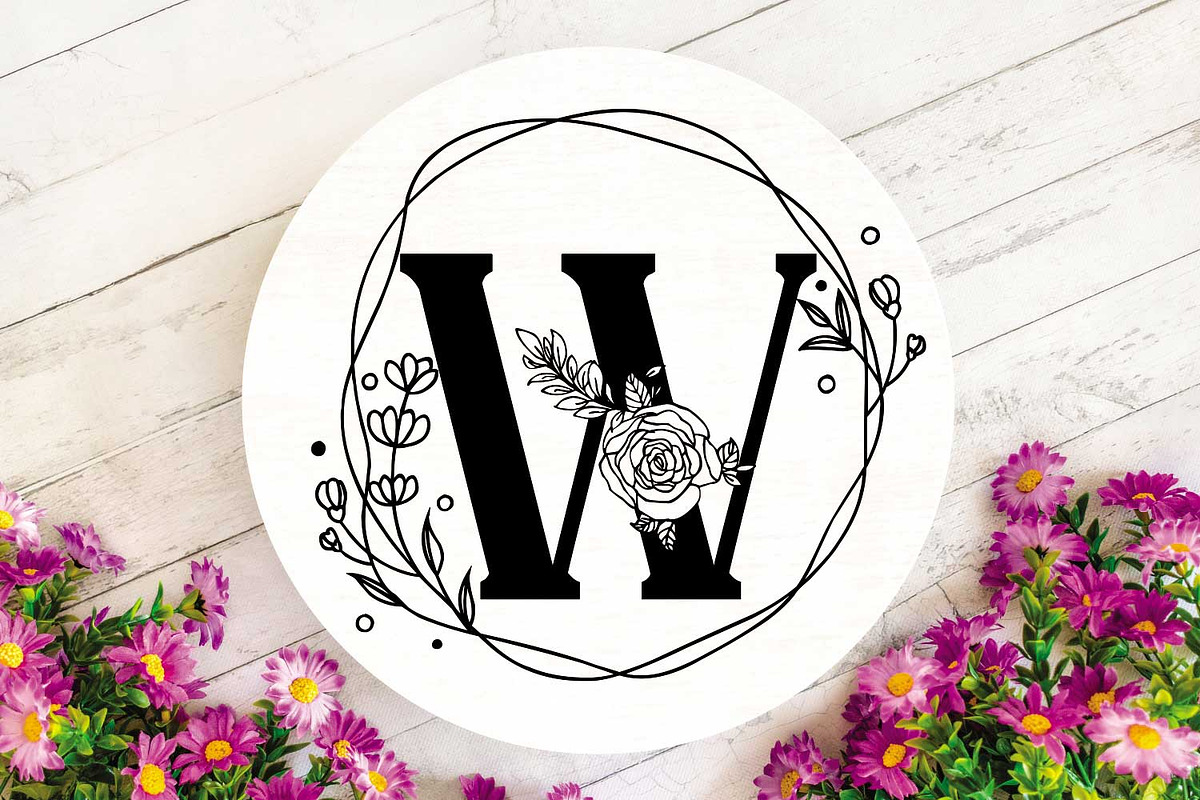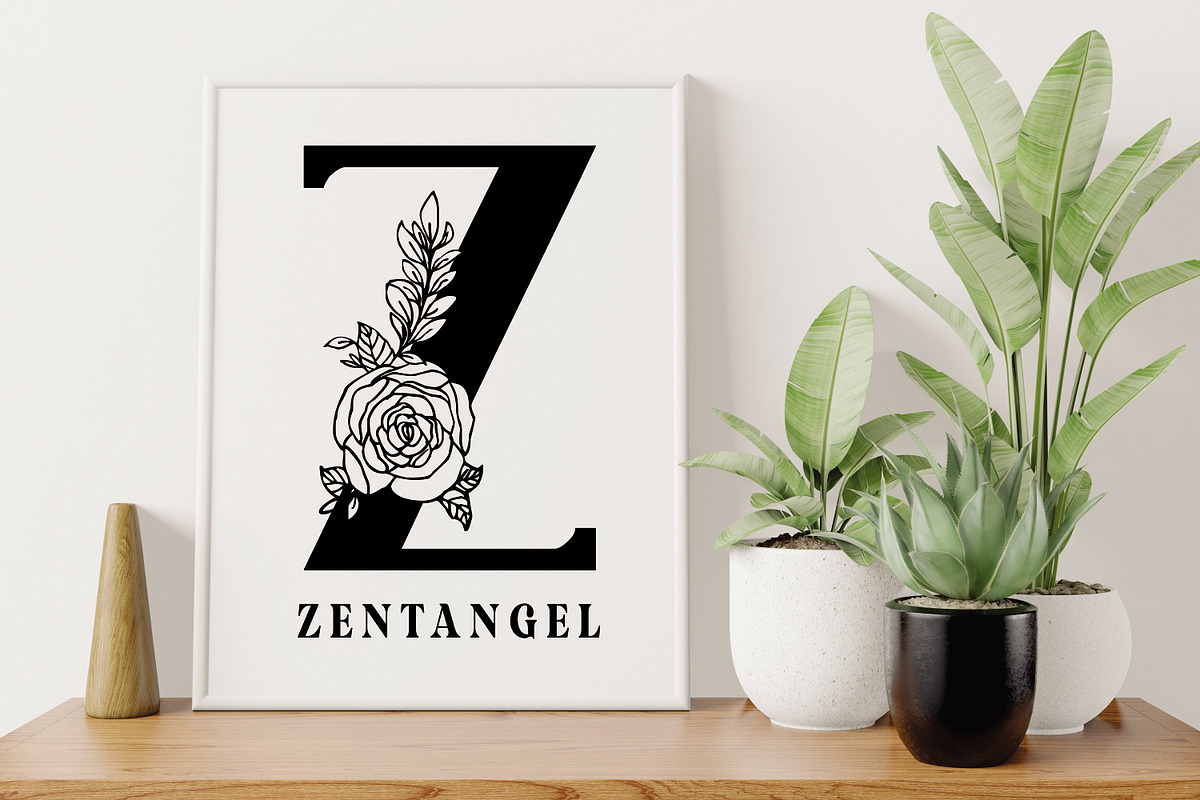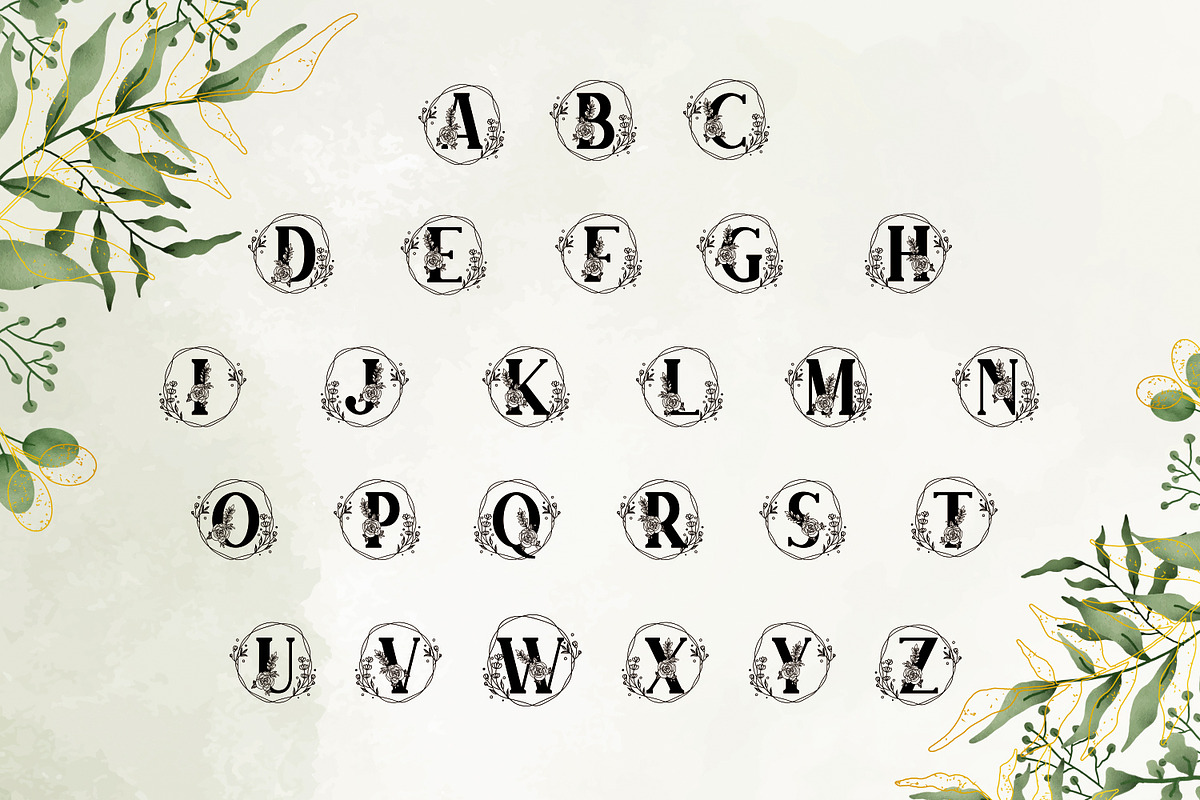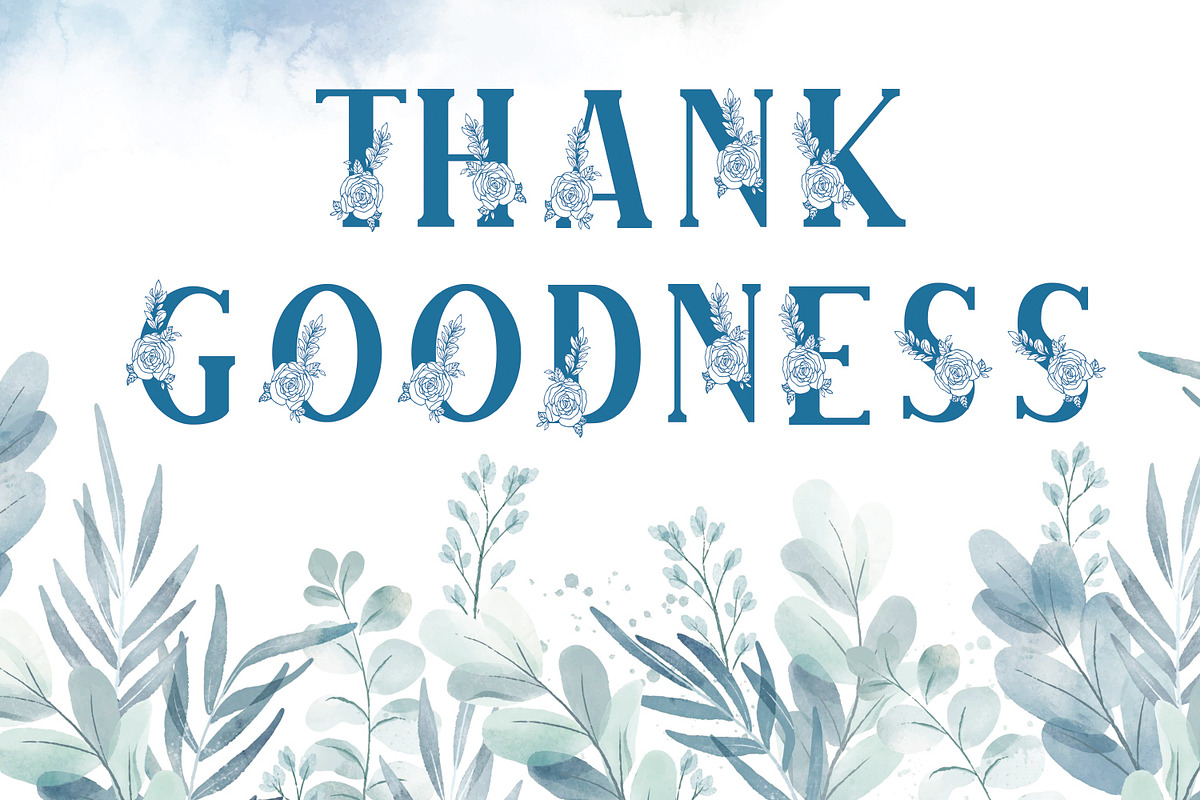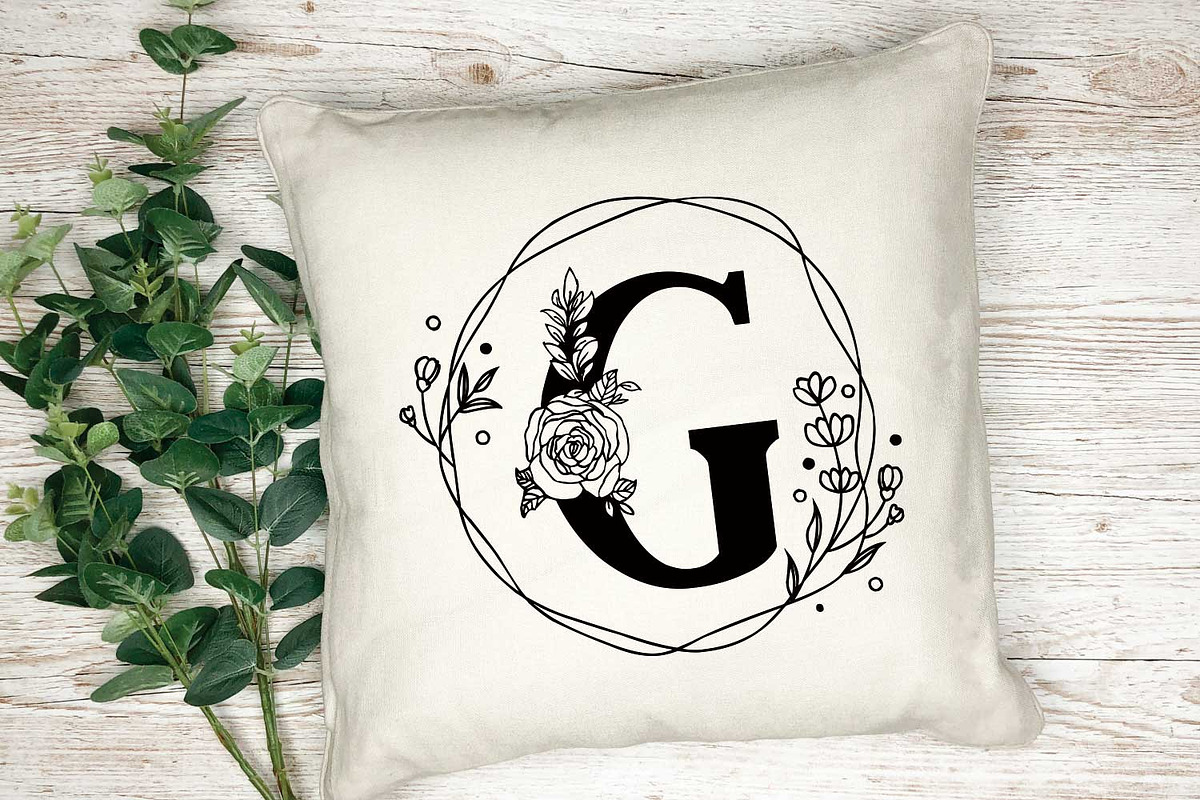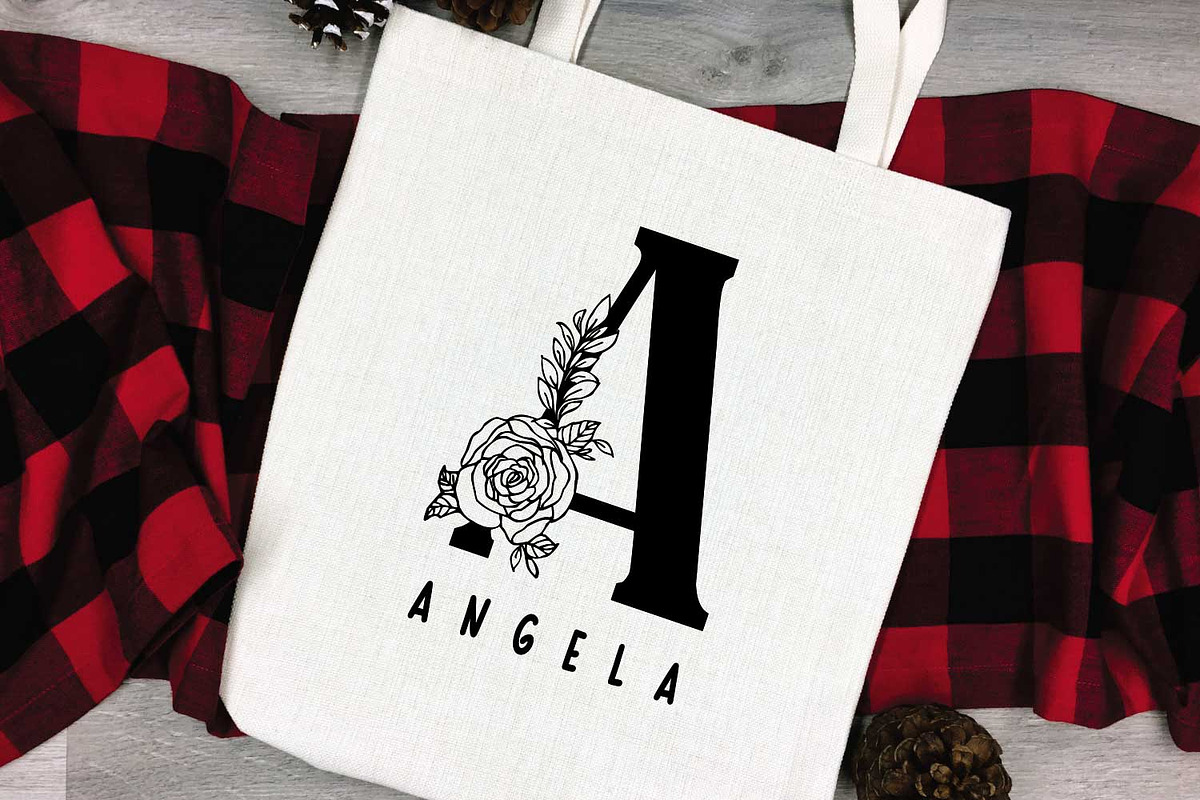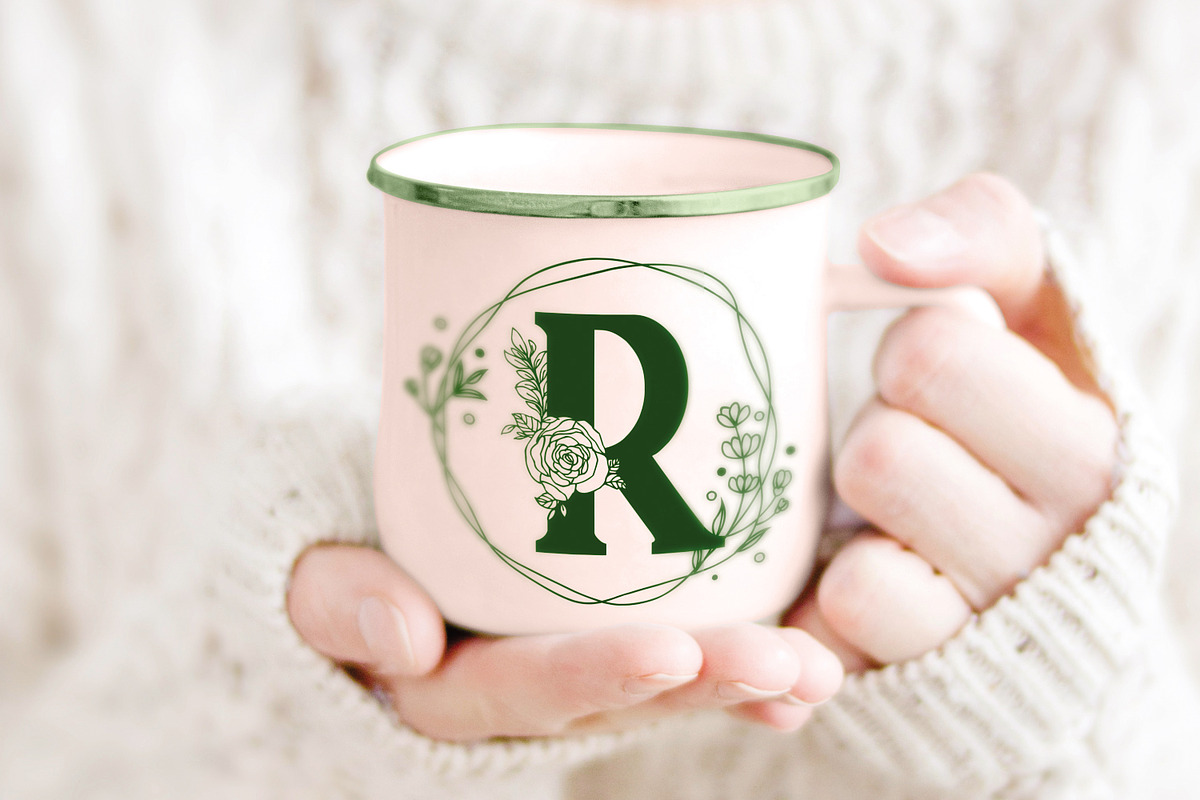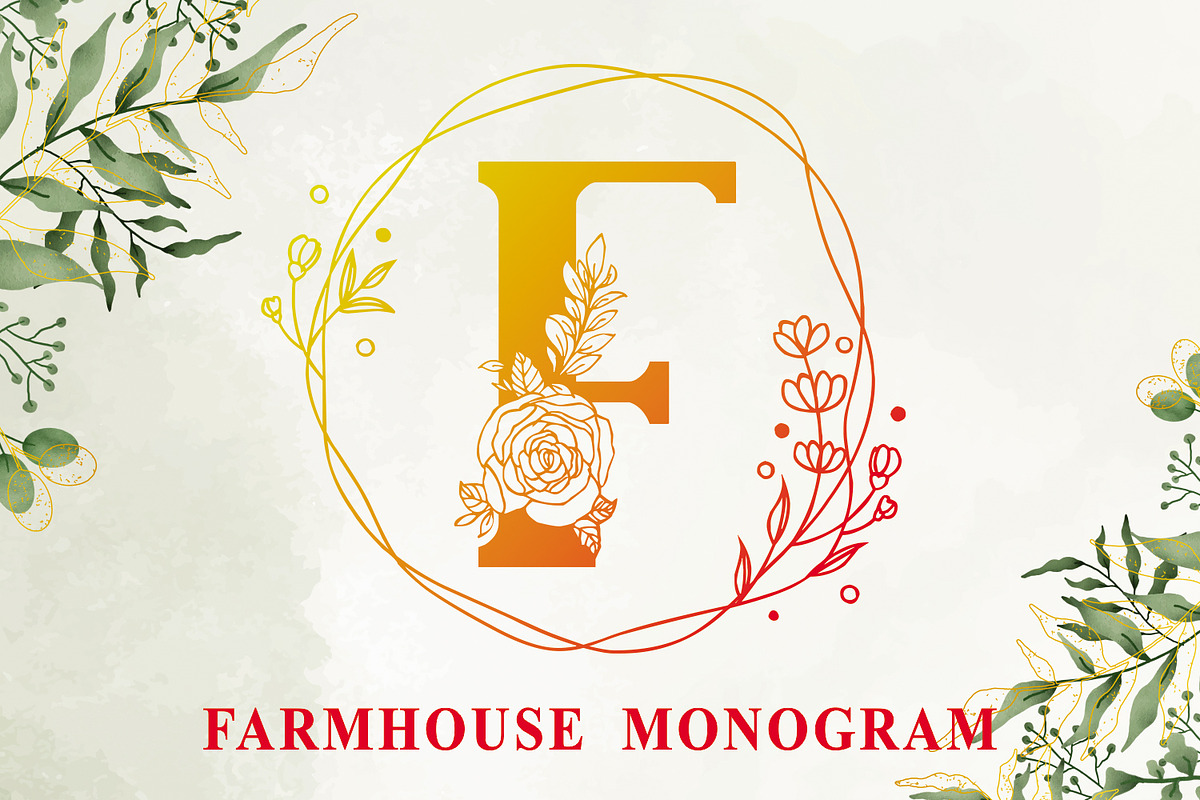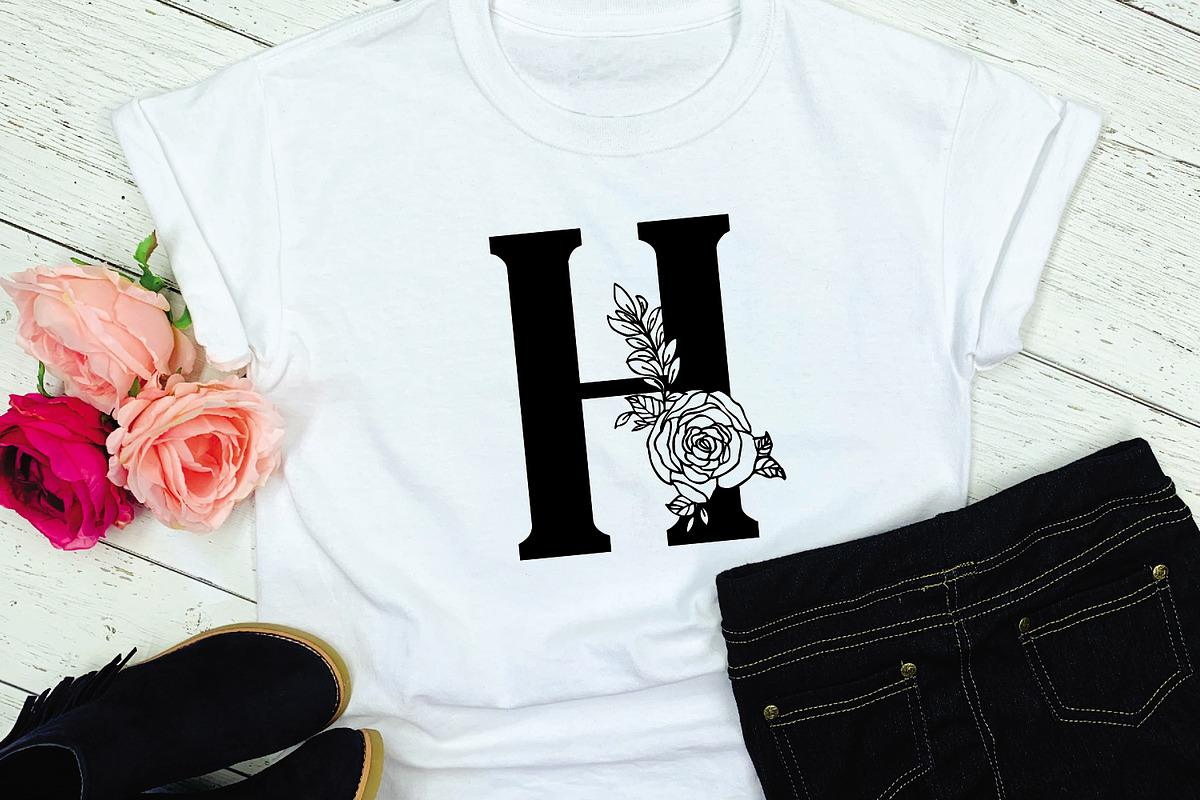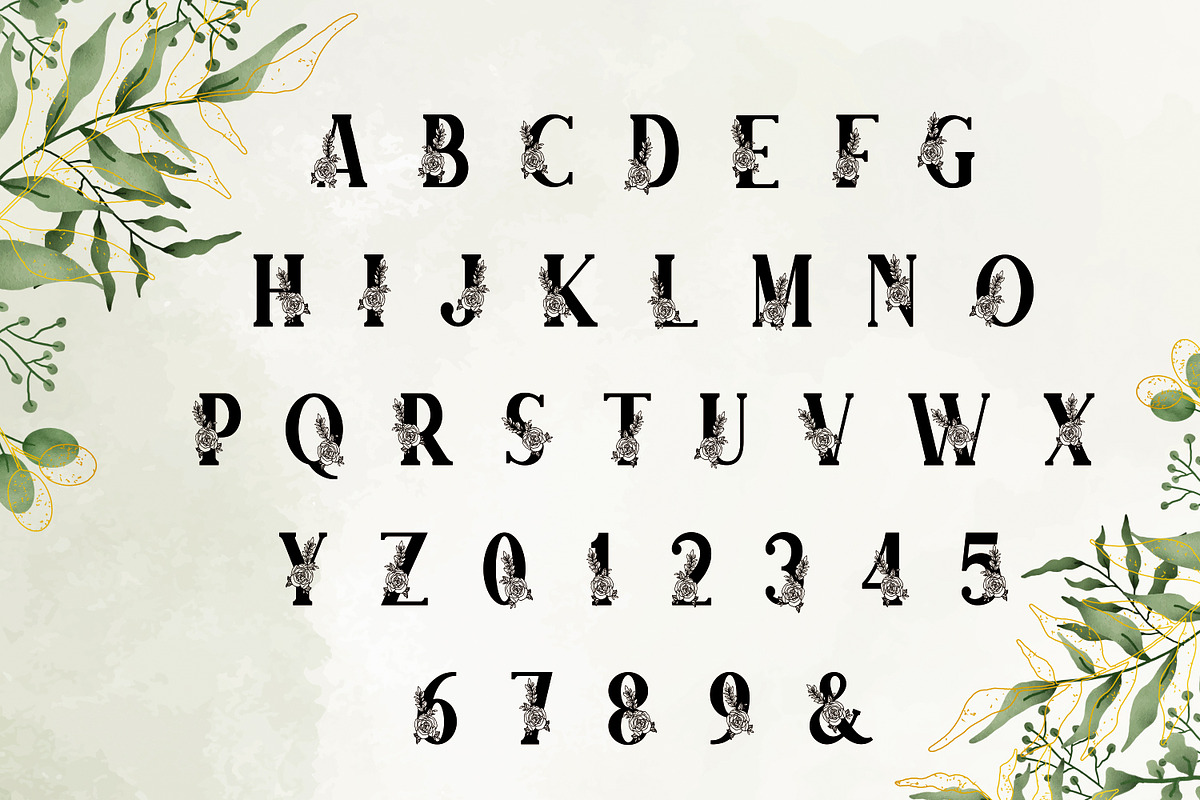
Farmhouse Monogram
Proudly present ” Farmhouse Monogram ” This monogram font is ideal for crafting, branding and decorates your any project. It is a sweet decorative font, featuring a lovely flower ornament.
Fall in love with its authentic feel and use it to create gorgeous wedding invitations, beautiful stationary art, eye-catching social media posts, and cute greeting cards. Also with their help, you can create a logo or beautiful frame for your home.
Fall in love with its incredibly versatile style and use it to create spectacular designs! Use this font for any crafting project that requires a personalized look!